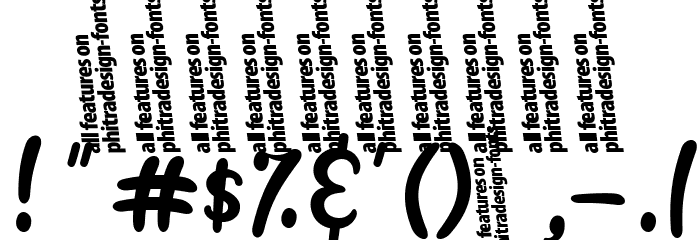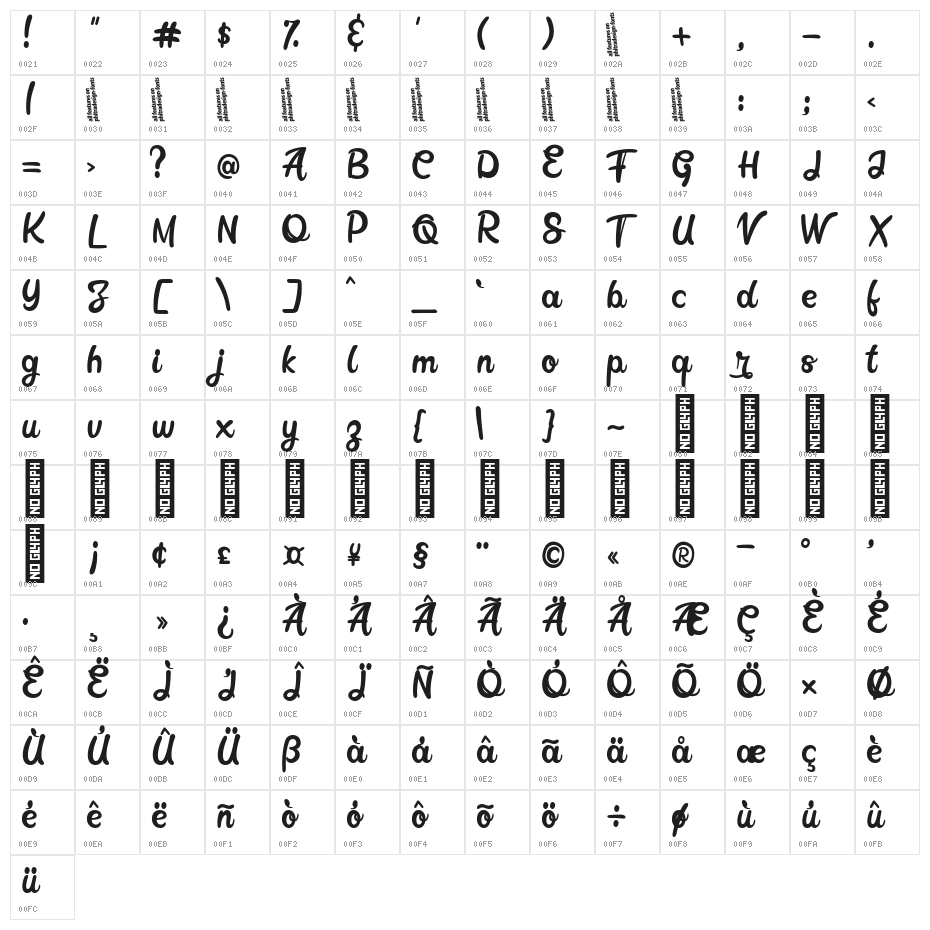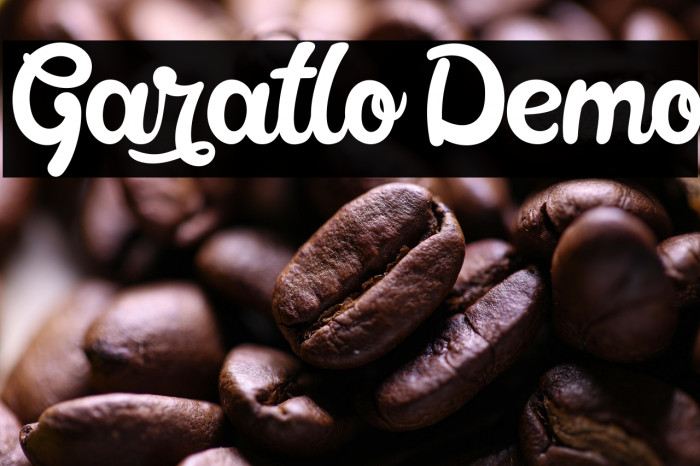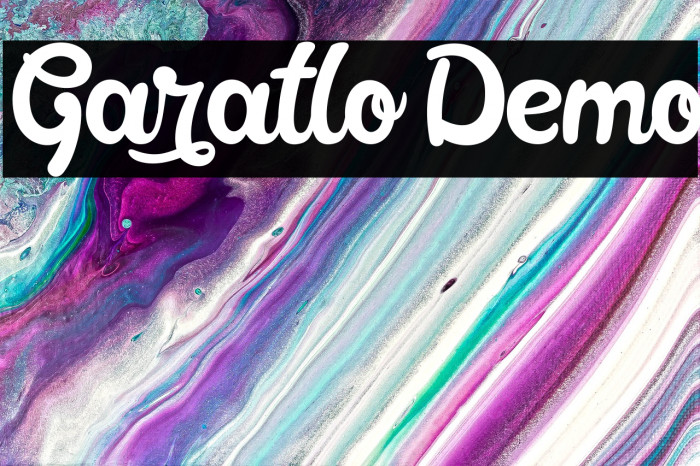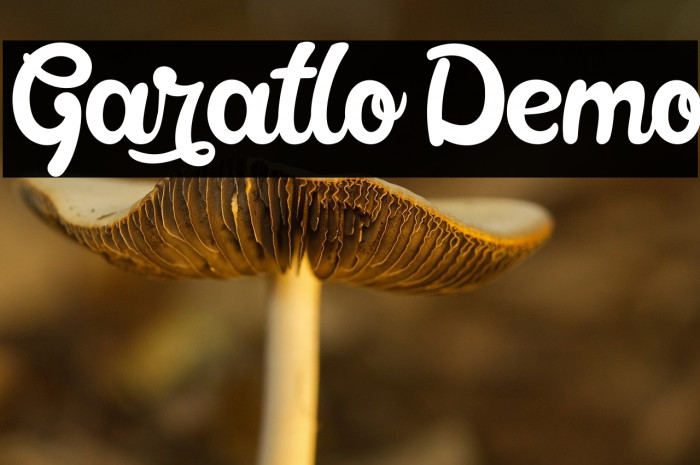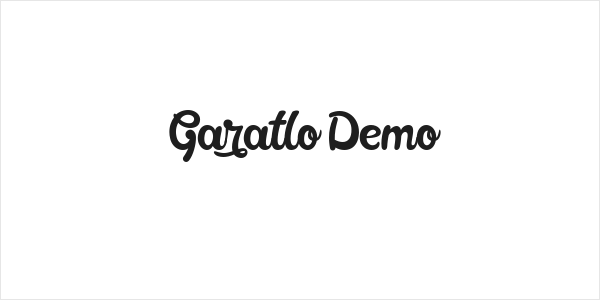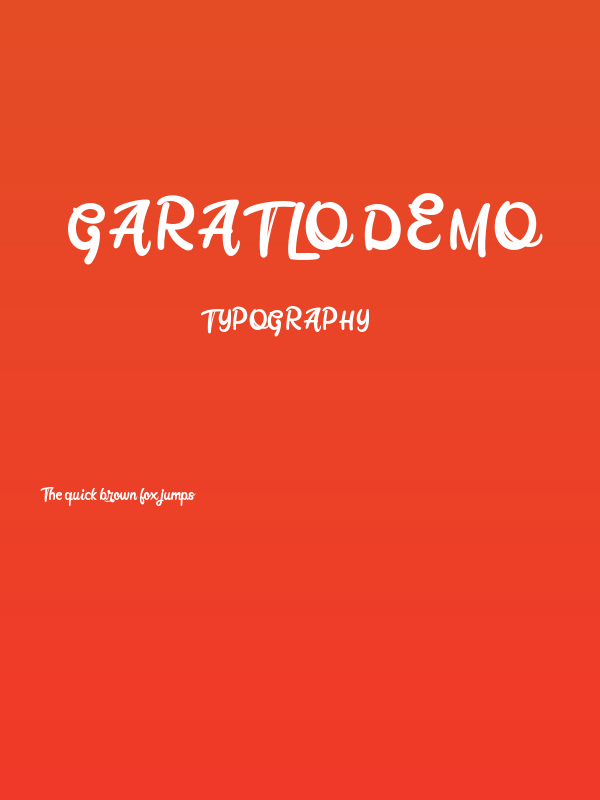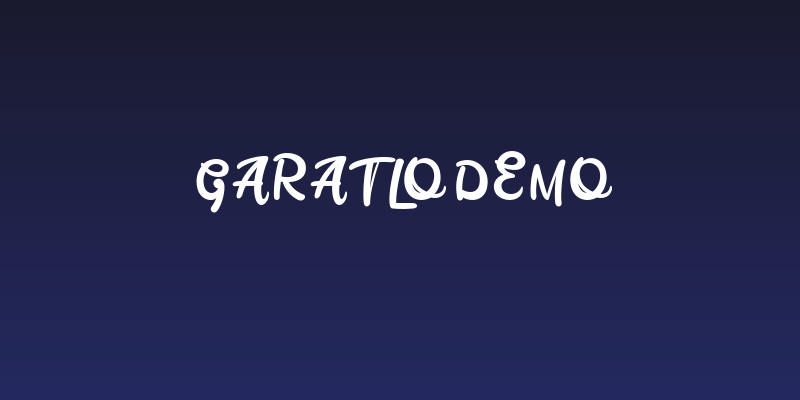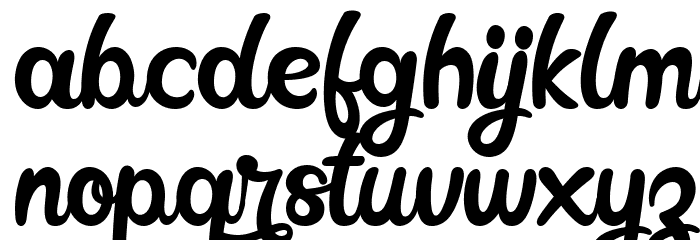
Garatlo Demo Font
Garatlo Demo Description
This font features a playful and dynamic script style with a handwritten feel. The characters are bold and rounded, giving a sense of friendliness and approachability. The uppercase letters are slightly more structured, while the lowercase letters exhibit a flowing, cursive nature. The strokes are consistent in width, providing a uniform appearance across all characters. The special characters maintain the same playful style, making them suitable for creative and informal designs.
| Proposed Projects | Ideal for greeting cards, playful branding, children's books, and creative social media graphics. |